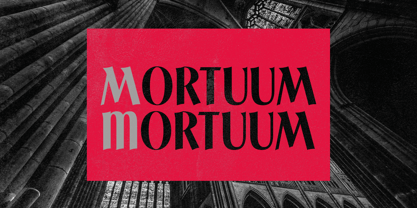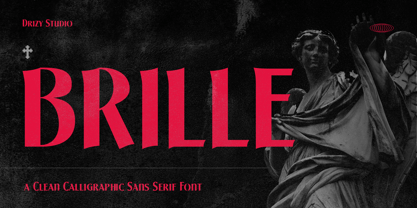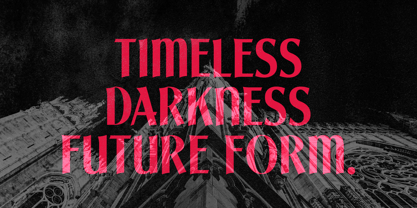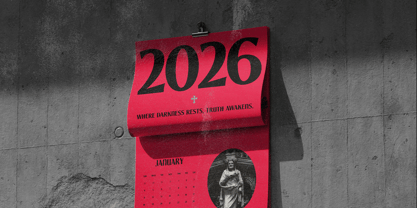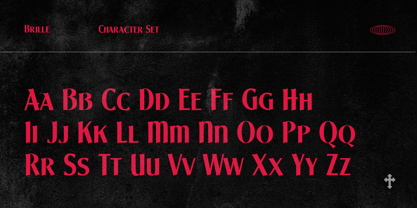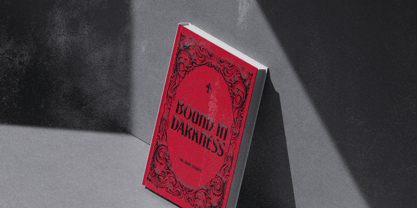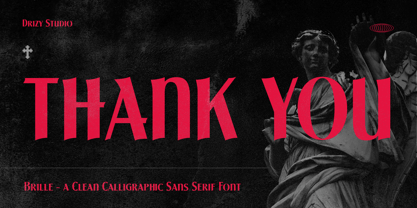
Brille
by Drizy Font
The Brille Font Family was designed by Panca Ahmadi Hasan and published by Drizy Font. Brille contains 1 styles. More about this family
Brille – A Clean Calligraphic Font Brille-A is a Winter Sans font inspired by the calm, clean, and airy feeling of the winter season. It features smooth curves, soft terminals, and balanced proportions that create a modern yet gentle appearance. While rooted in sans-serif structure, Brille-A carries subtle calligraphic influences in its strokes, giving it a refined and slightly handwritten personality without losing clarity and readability. Designed for versatility, Brille-A works beautifully across a wide range of creative projects such as branding, logos, social media posts, posters, quotes, seasonal designs, and digital products. Its clean construction ensures excellent legibility, while its elegant flow adds warmth and character to otherwise minimal layouts. Brille – A Clean Calligraphic Font features: - Uppercase & Lowercase - Punctuation & Numbers - Multilingual Elevate and explore the design possibilities with this Winter Sans Font!